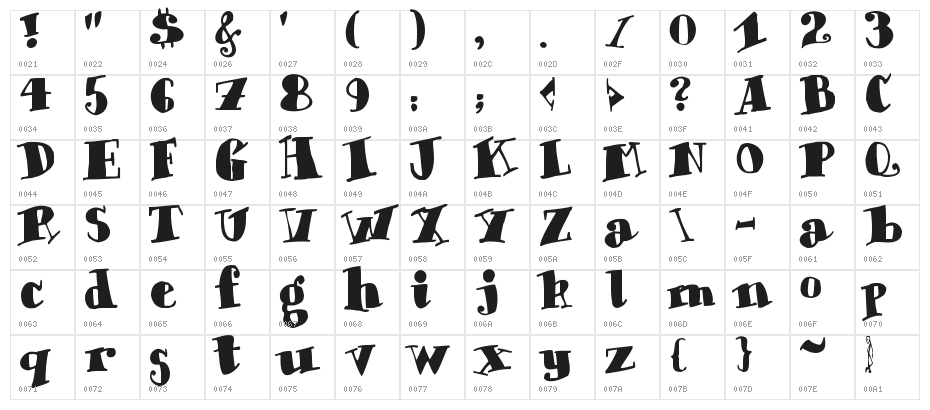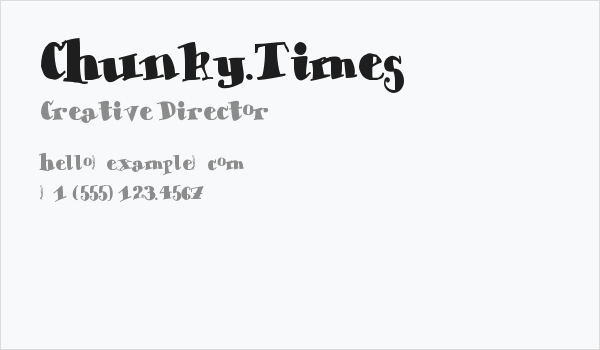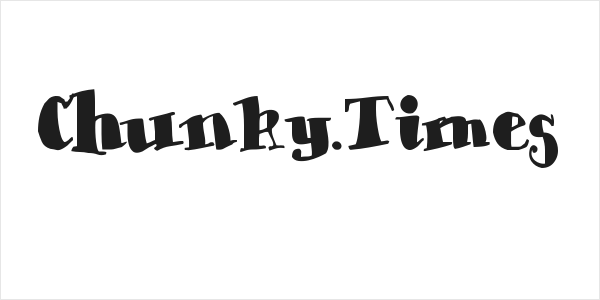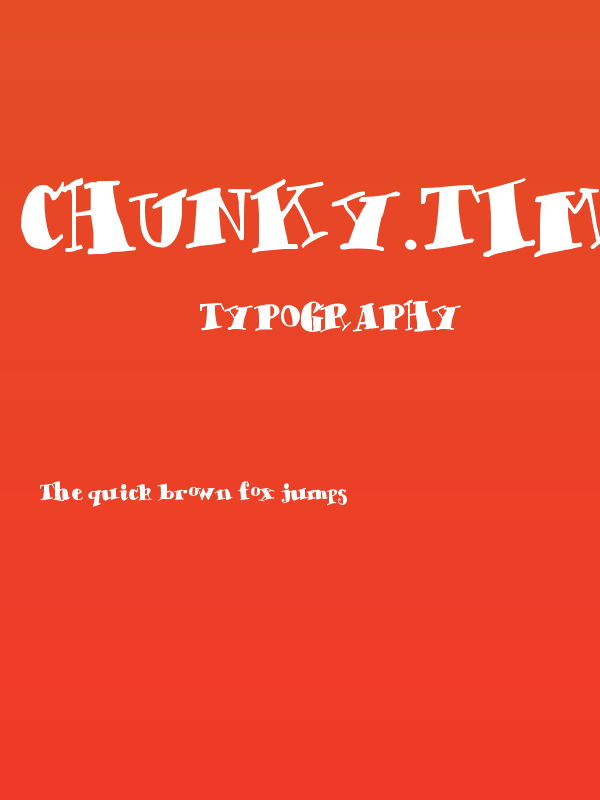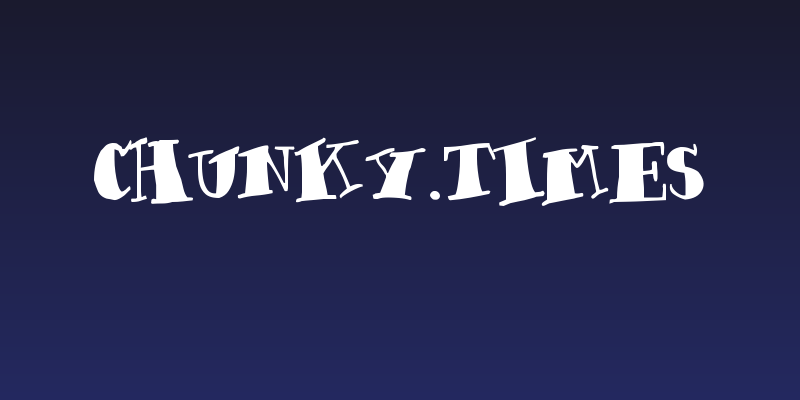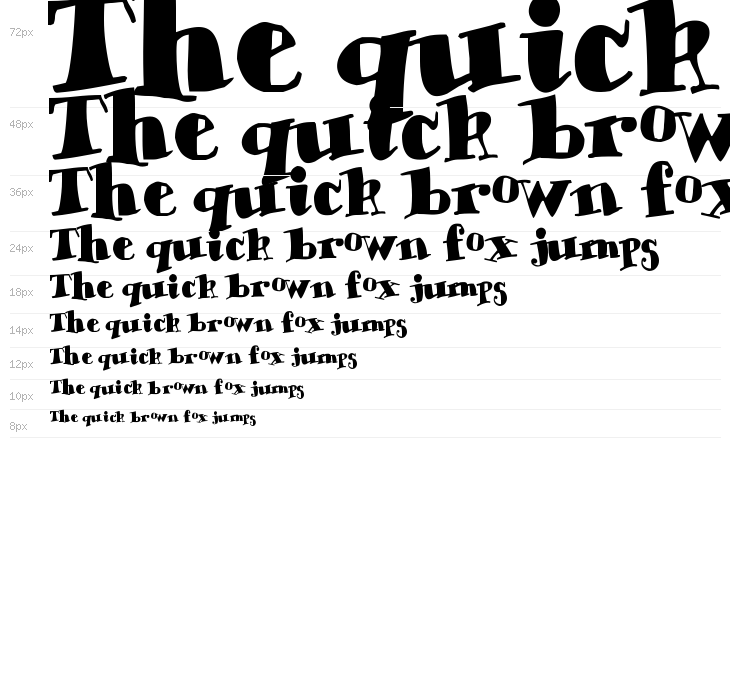
Chunky-Times Font
Chunky-Times Description
This font features a bold and playful design with a distinctively chunky and whimsical style. The characters are irregularly shaped, with exaggerated curves and angles that give it a lively and dynamic appearance. The uppercase letters are particularly bold, with a strong presence, while the lowercase letters maintain a consistent playful theme. The numbers are equally bold and maintain the quirky style of the alphabet. The special characters are creatively designed, adding to the overall fun and artistic feel of the font. This font is ideal for projects that require a touch of humor and creativity.
| Overall Style | Playful, Whimsical, Artistic |
| Use Case | Headlines, Posters, Creative Branding |